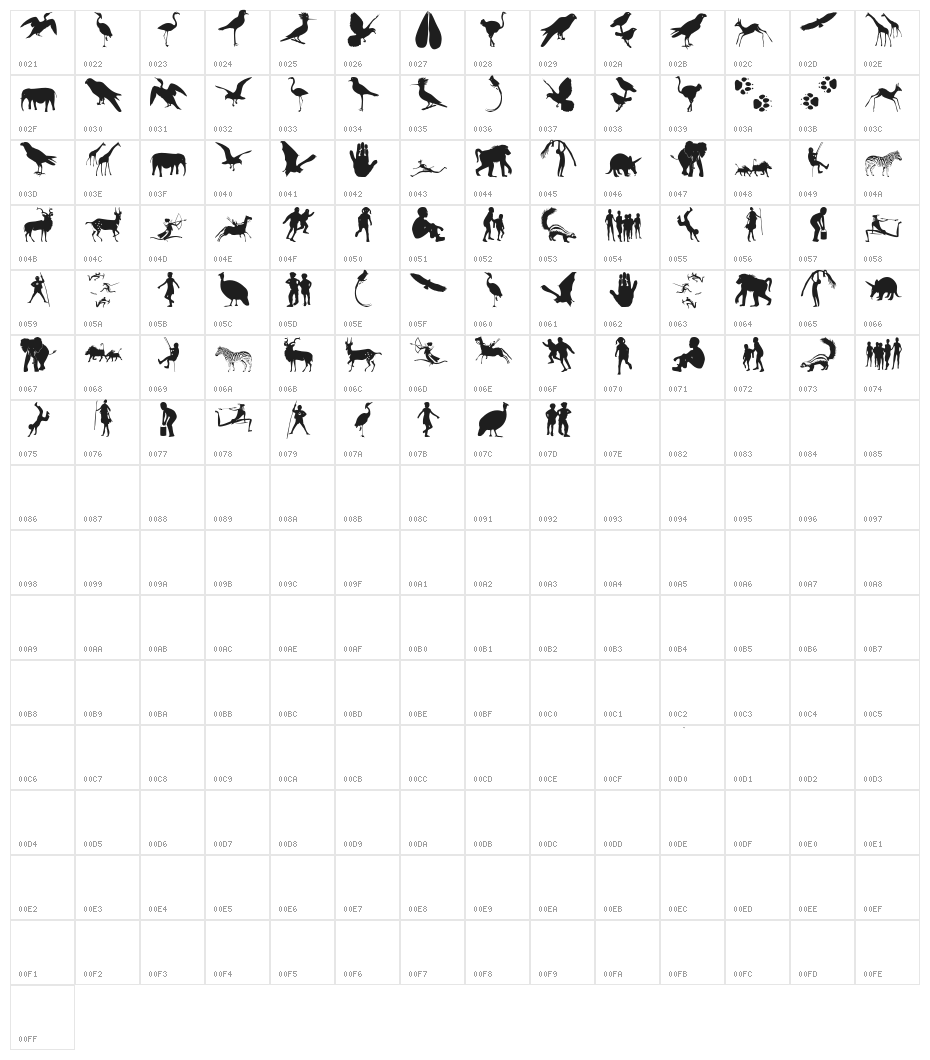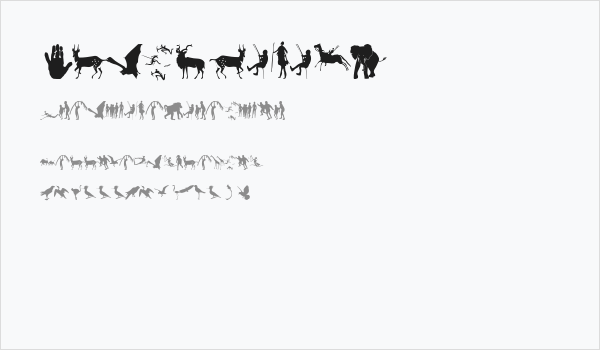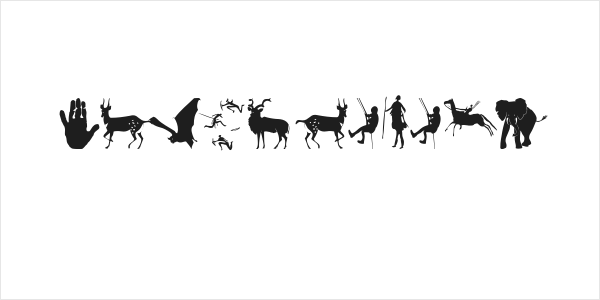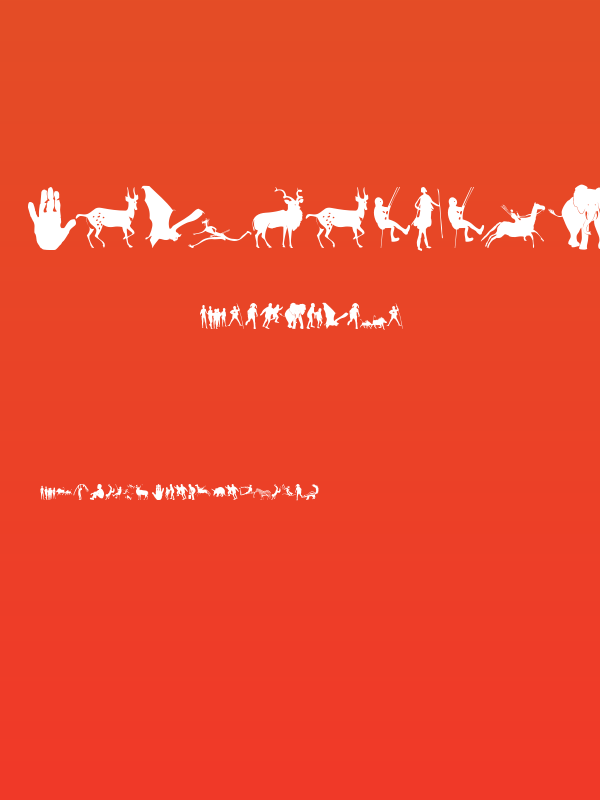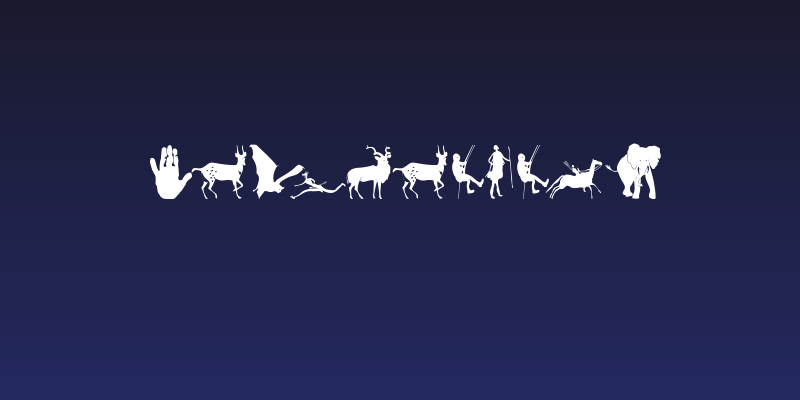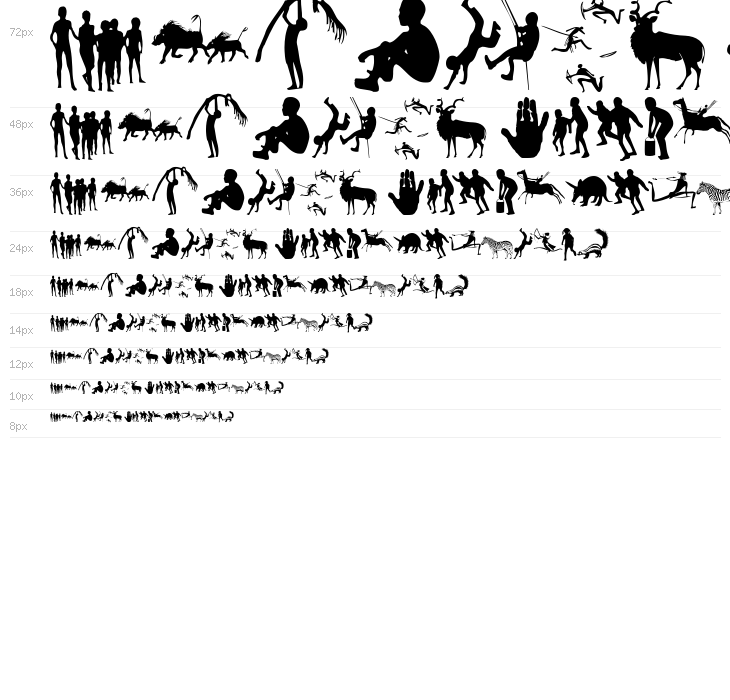
BlackLiving Font
BlackLiving Description
A highly decorative font composed of silhouettes of animals, birds, and human figures in various poses, creating each character with unique, organic shapes. The glyphs are playful and illustrative, with strong black fills and no internal detail, emphasizing the outline of each subject.
| Overall Style | Decorative, Playful, Organic |
| Use Case | Headlines, Posters, Logos, Themed Graphics |
| Proposed Projects | ChildrenΓ’β¬β’s books, educational posters, wildlife campaigns, creative branding, event invitations, themed signage. |